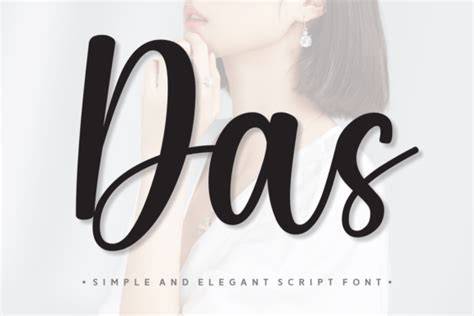
What Are Das Fonts?
Das Fonts is a type of font family that was developed to help create a more modern, stylish look for typefaces. It was first released in 2021 and has quickly become popular among graphic designers, web developers, and digital marketers. The font family has a number of features that make it stand out, such as its wide range of weights and widths, its support for multiple languages, and its ability to be customized. It also has a unique and distinct look that is sure to make any text stand out.
Features of Das Fonts
Das Fonts has a number of unique features that make it stand out from other typefaces. The font family has a wide range of weights, from thin to extra bold, for different font sizes. It also has a wide range of widths, from condensed to extended, to help create a more modern, stylish look. Additionally, the font family is designed to support multiple languages, making it perfect for international projects.
Das Fonts also has an array of features that make it more customizable. It includes a number of different styles, such as italic, regular, condensed, and expanded. It also has a number of different variations, such as outline, shadow, and 3D. Finally, the font family includes a number of different OpenType features, such as ligatures, alternative characters, and stylistic sets.
Using Das Fonts
Das Fonts can be used for a variety of different projects, from web design to logo design. The font family has a wide range of weights and widths, making it perfect for projects of any size. It also has a unique and distinct look that is sure to make any text stand out. The font family is also designed to support multiple languages, making it perfect for international projects.
When using Das Fonts, it's important to make sure the font fits the project. If the font is too small, it can look unprofessional or out of place. If the font is too large, it can be difficult to read. It's also important to make sure the font is easy to read and looks good on various screens and devices. Finally, it's important to make sure the font is compatible with the software or program being used.
Das Fonts is a modern typeface family that offers a unique and stylish look. It has a wide range of weights and widths, making it perfect for any project. The font family also supports multiple languages, making it perfect for international projects. Finally, it has a number of different styles and variations, making it customizable for any project. With its modern look and wide range of features, Das Fonts is a great choice for any project.